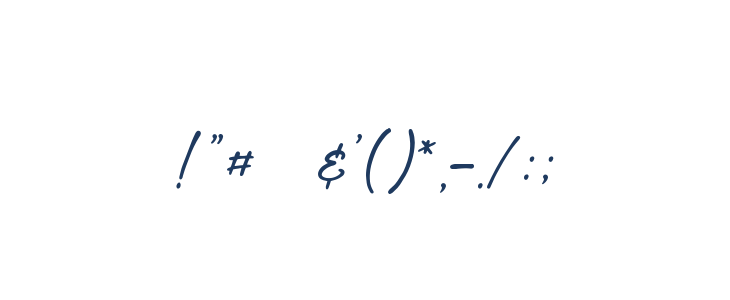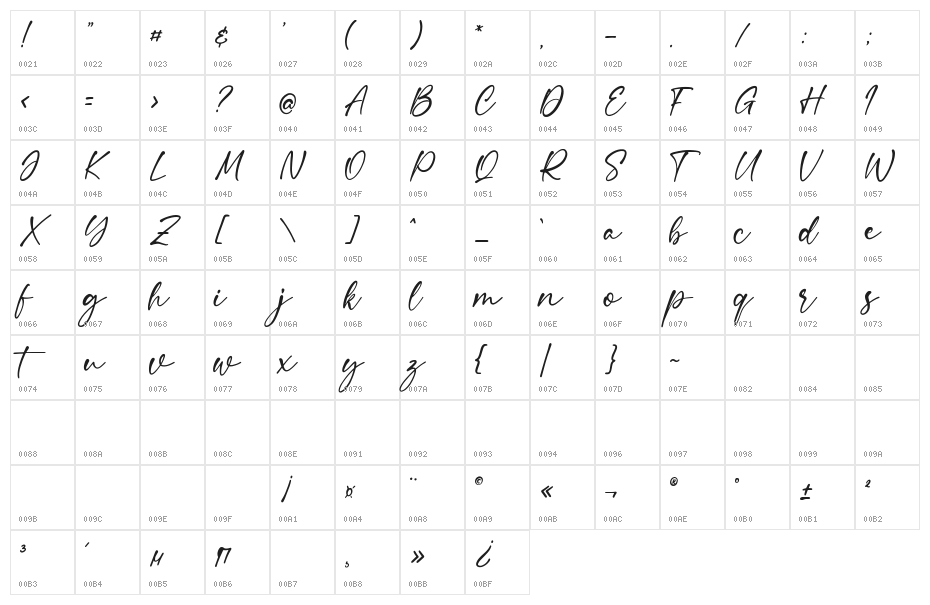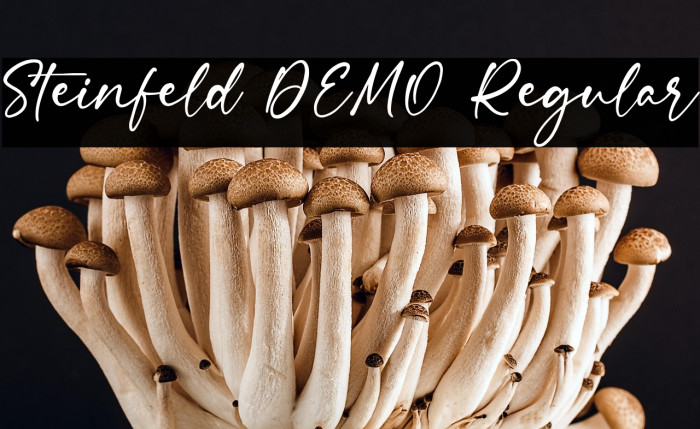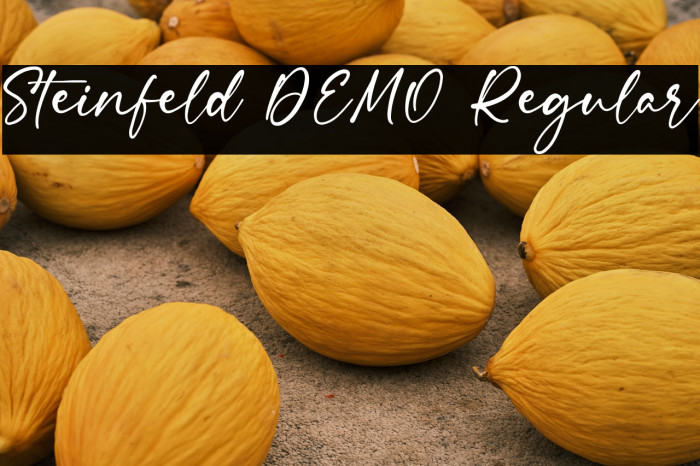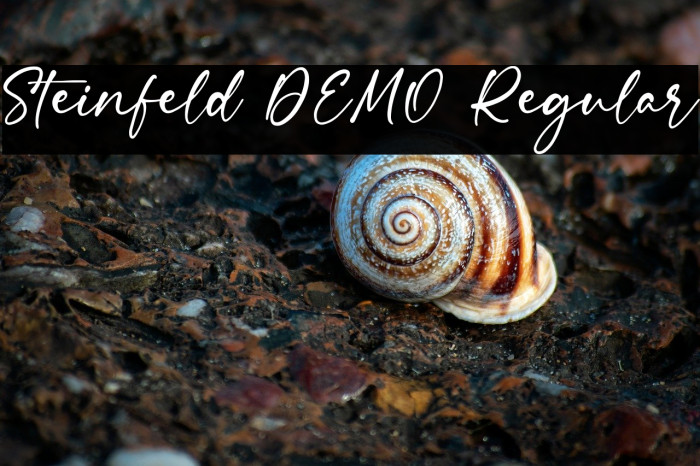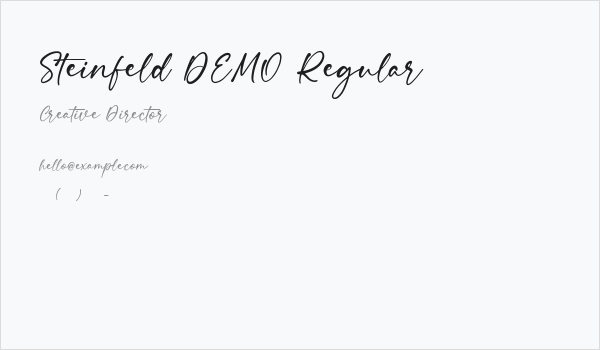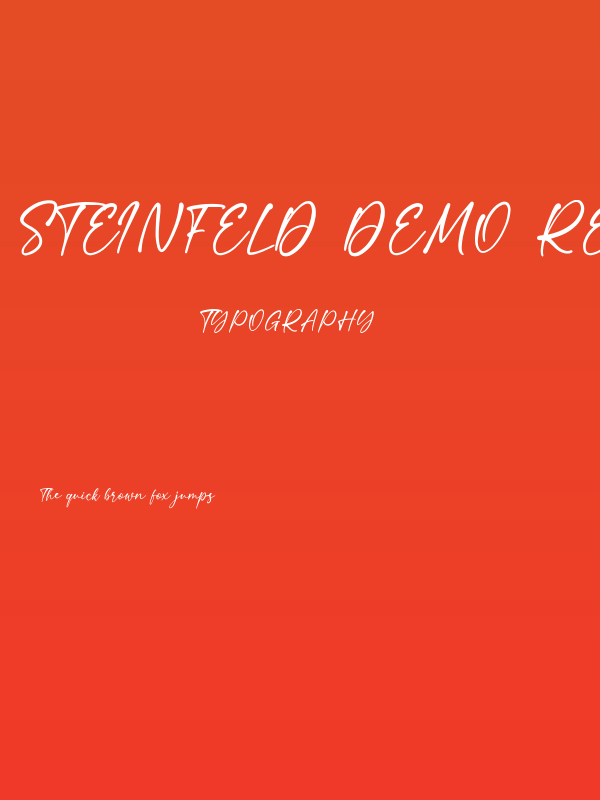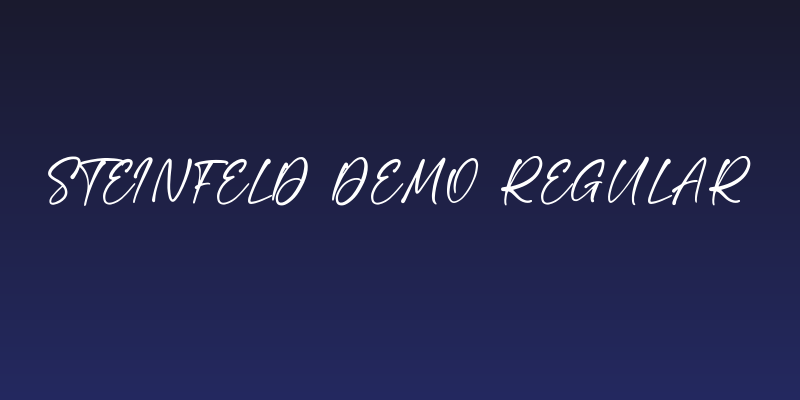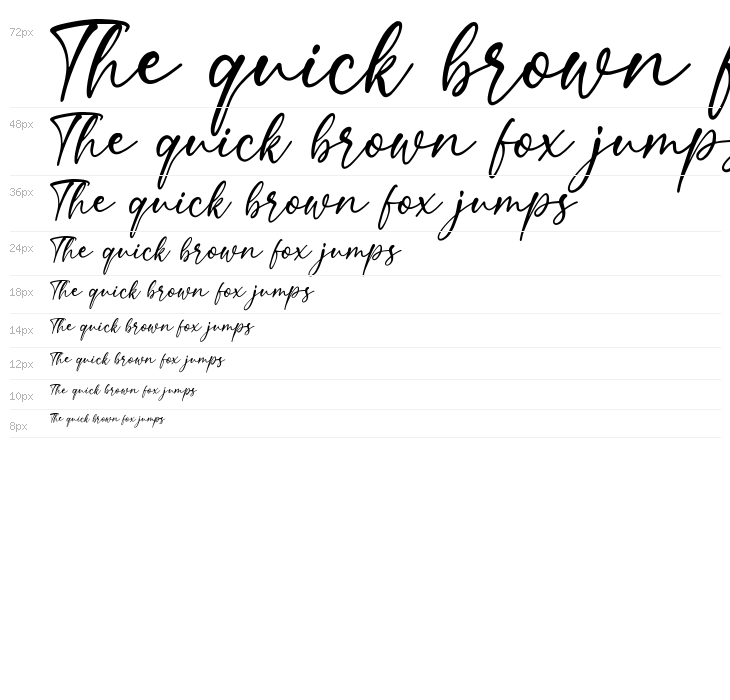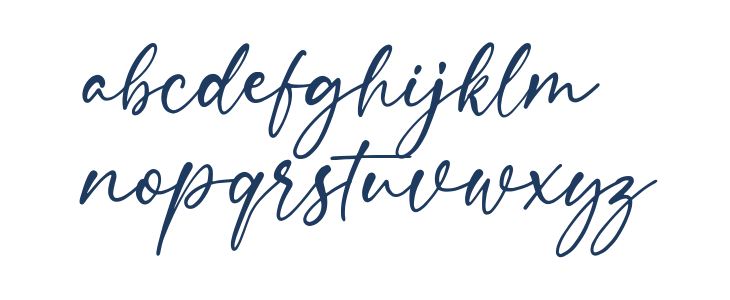
Steinfeld DEMO Regular Font
Steinfeld DEMO Regular Description
This font features a fluid, cursive style that mimics elegant handwriting. The letters are connected, creating a seamless flow that is both sophisticated and approachable. The strokes vary in thickness, adding a dynamic and lively feel to the text. The uppercase letters are bold and prominent, while the lowercase letters maintain a graceful and consistent appearance. The numerals and special characters are designed to complement the overall script style, ensuring a cohesive look across all text elements.
| Proposed Projects | Ideal for wedding invitations, greeting cards, branding, and logo design where a personal touch is desired. |